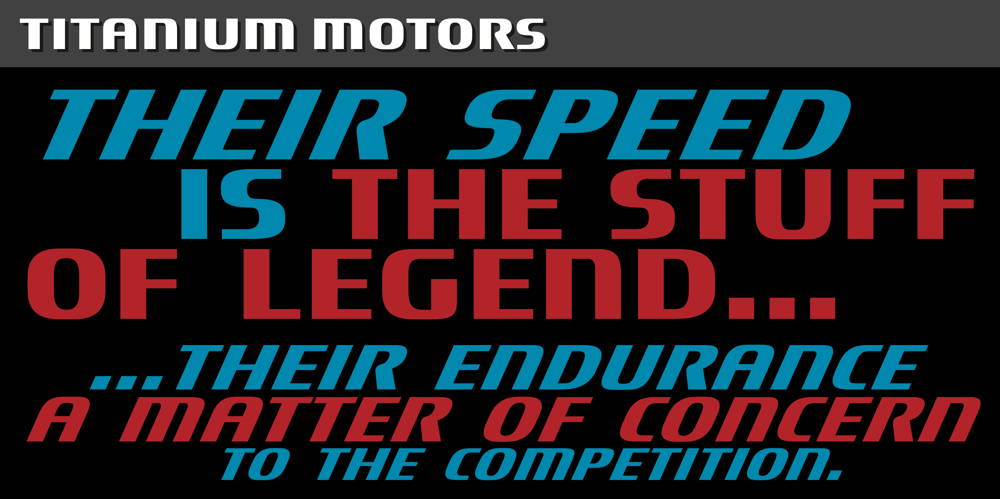
Titanium Motors
Titanium Motors font
Titanium Motors Font Family was designed by Steve Matteson, Jim Ford and published by Monotype. Titanium Motors contains 2 styles and family package options. There is almost no other font that conveys a sense of speed better than the bold but dynamic letters of Titanium Motors™ by Steve Matteson. Use this headline font to create exciting software titles, logos and user interfaces.